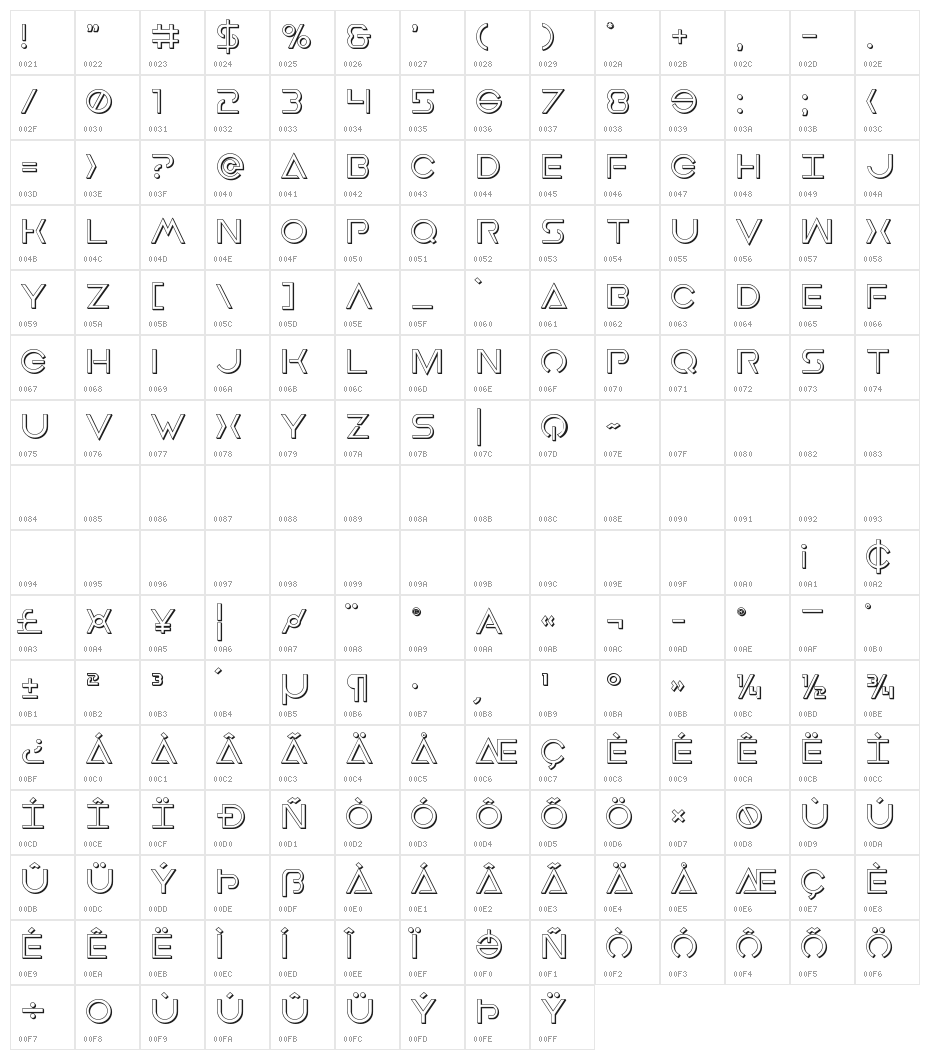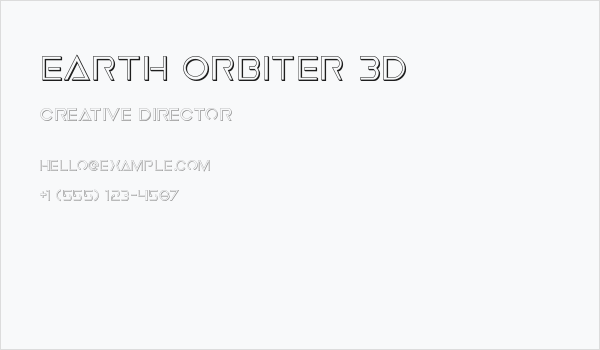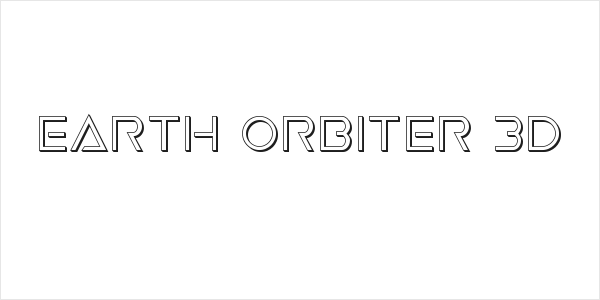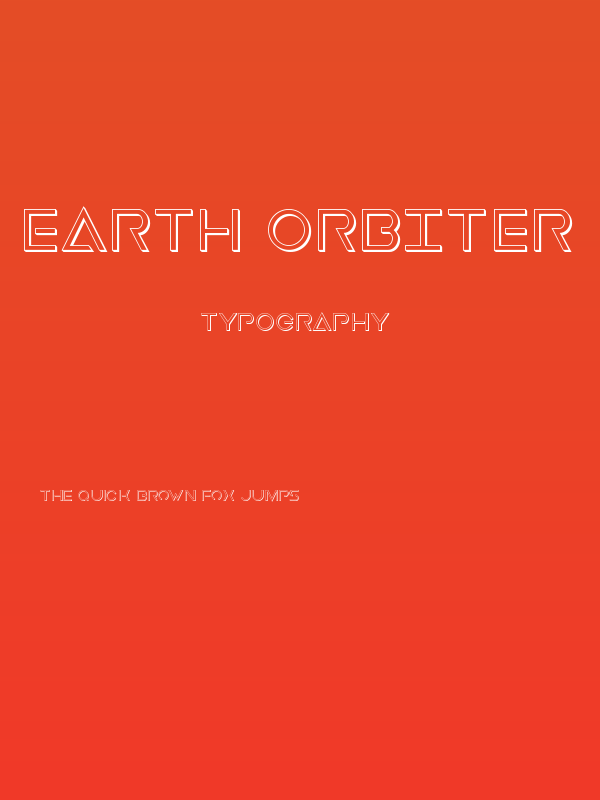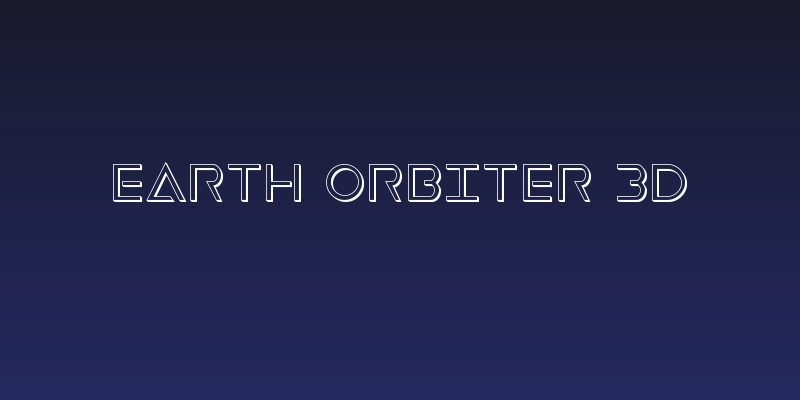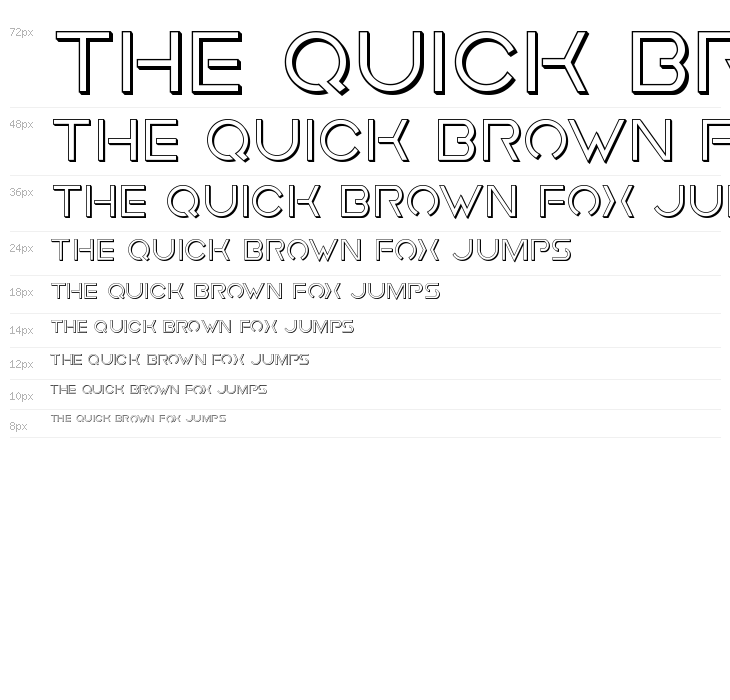
Earth Orbiter 3D Font
Earth Orbiter 3D Description
This font features a futuristic and geometric design, characterized by its three-dimensional appearance. The letters are constructed with bold, clean lines and a distinct outline that gives them a sense of depth and structure. The uppercase and lowercase letters maintain a consistent style, with angular and rounded elements that create a dynamic visual effect. The numerals and special characters follow the same design principles, ensuring uniformity across all glyphs. This font's unique style makes it stand out, offering a modern and innovative look suitable for various creative applications.
| Proposed Projects | Ideal for sci-fi themed projects, technology branding, video game titles, and modern posters. |